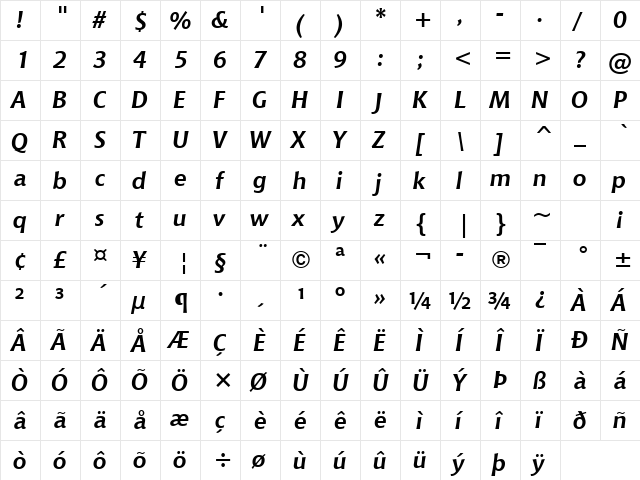
Chianti BdIt Win95BT Bold Italic Font Preview
Design Context for Chianti BdIt Win95BT Typeface
Chianti BdIt Win95BT takes a measured approach to typography — its balanced proportions and neutral character make it a reliable workhorse for both digital and print work. The slanted form adds forward momentum and visual energy. The heavy weight commands attention and anchors typographic hierarchies.